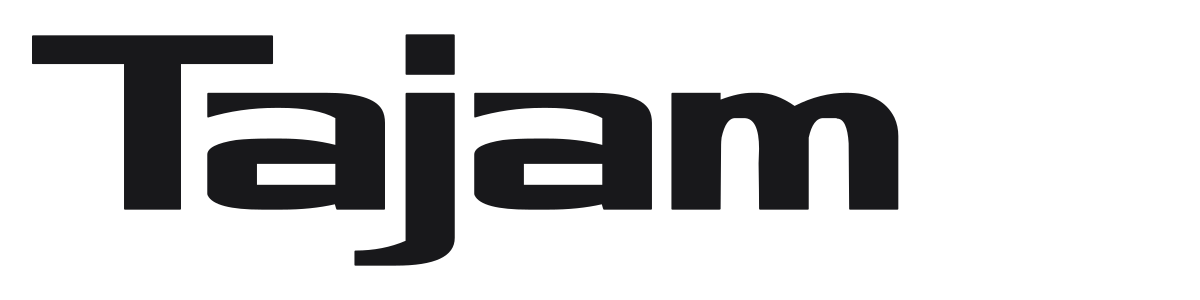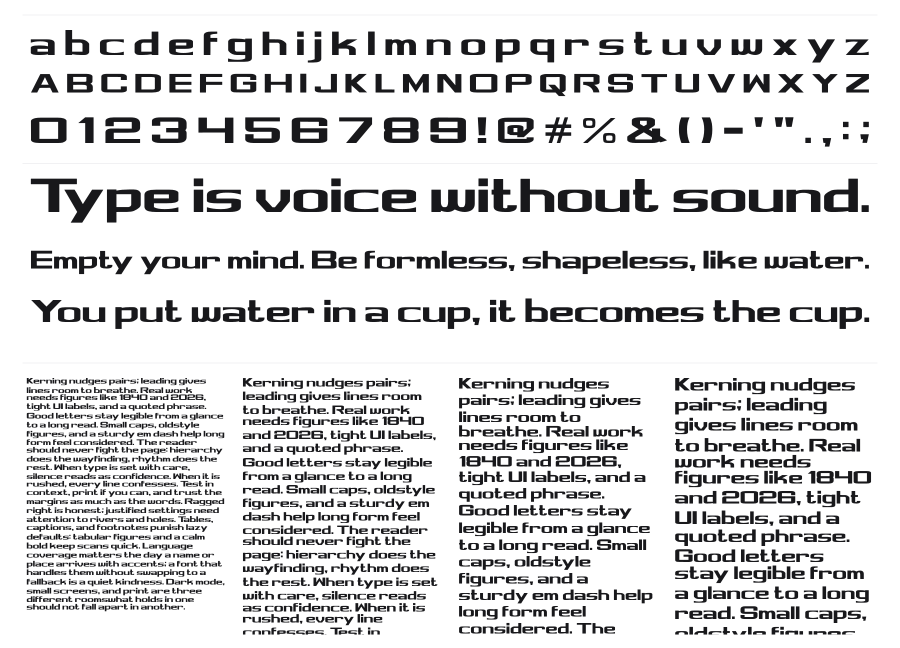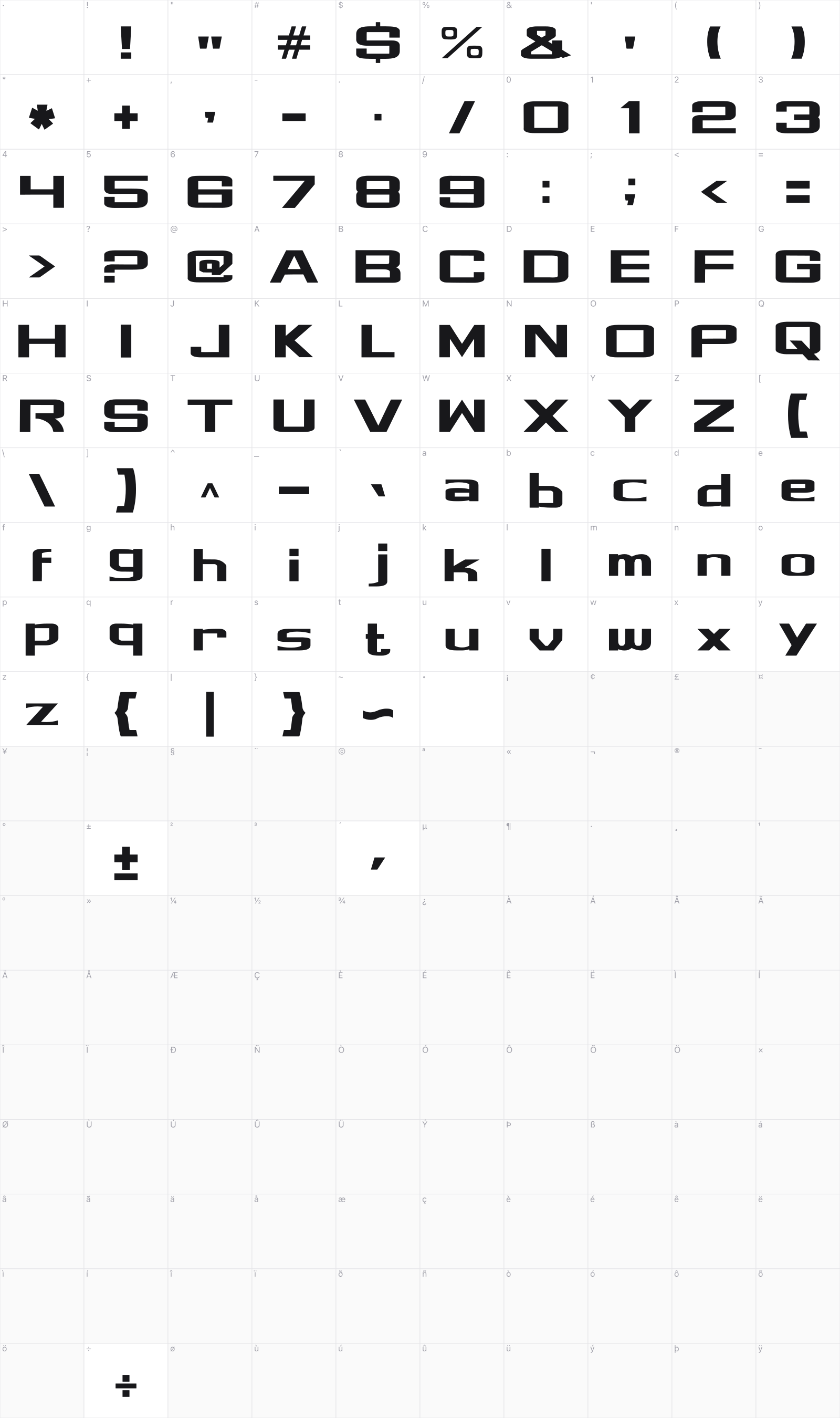
Tajam
Tajam is a bold, wide geometric sans with squared terminals and subtle corner rounding that lands somewhere between a heavy grotesque and a techno face. The near-monoweight strokes and dense spacing give it a strong, mechanical presence at headline sizes. It carries the kind of blunt authority that works well in gaming, sports, and technology contexts.